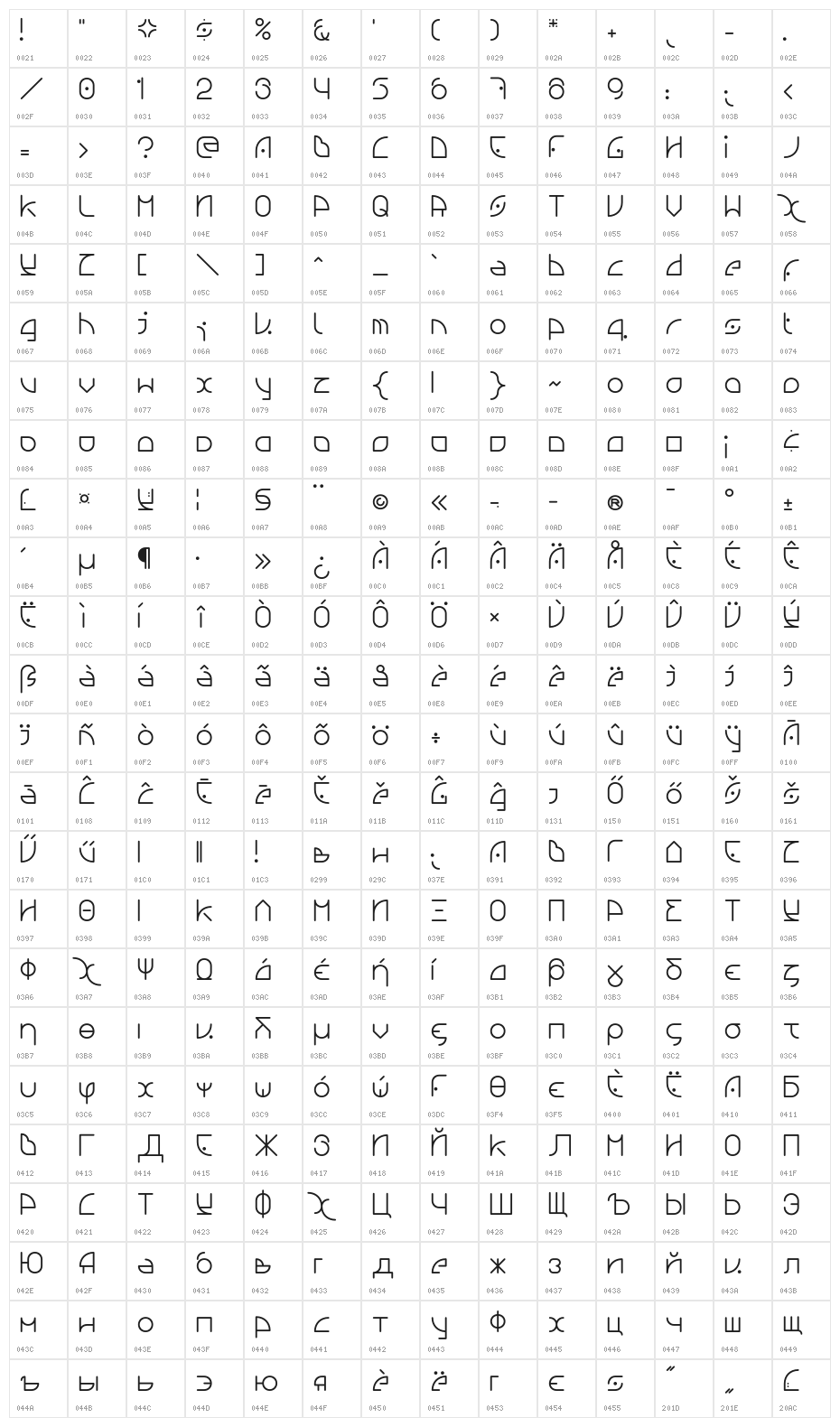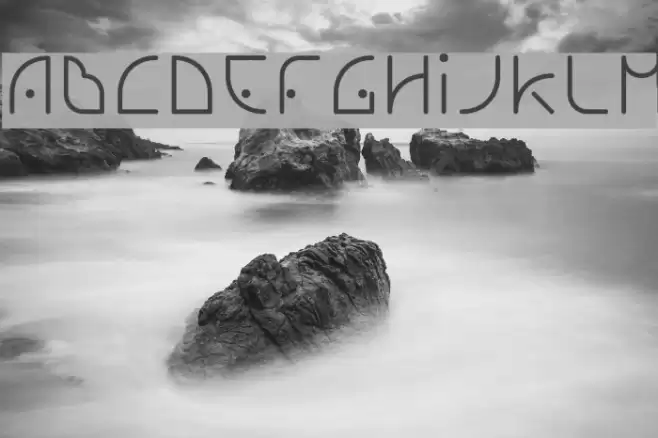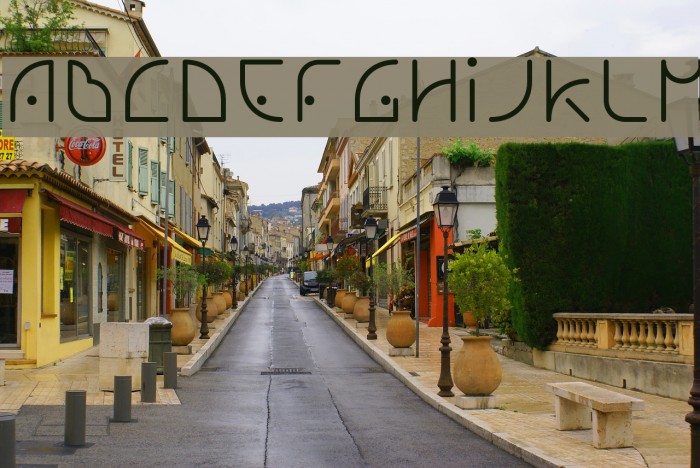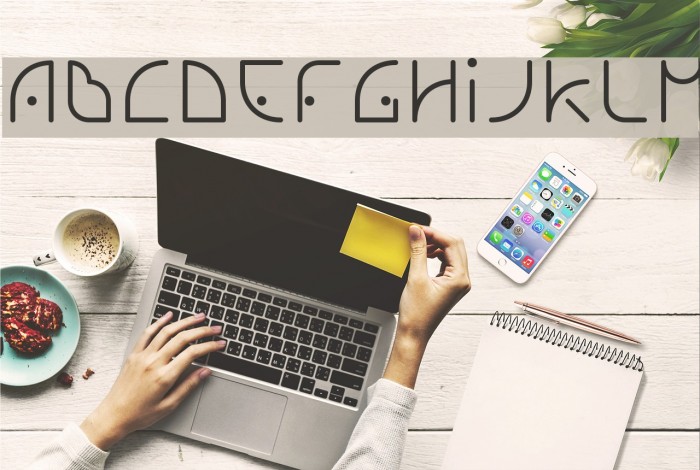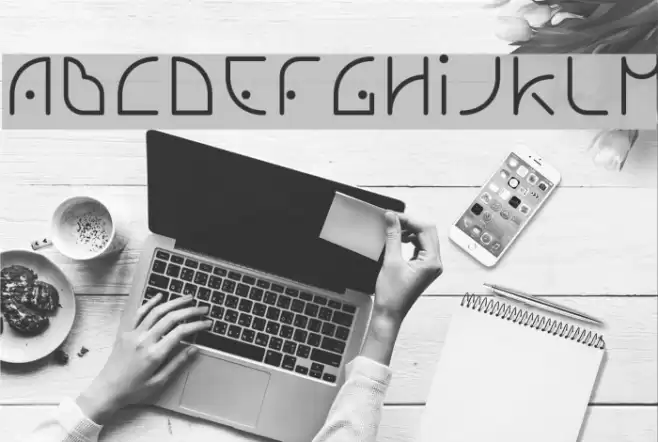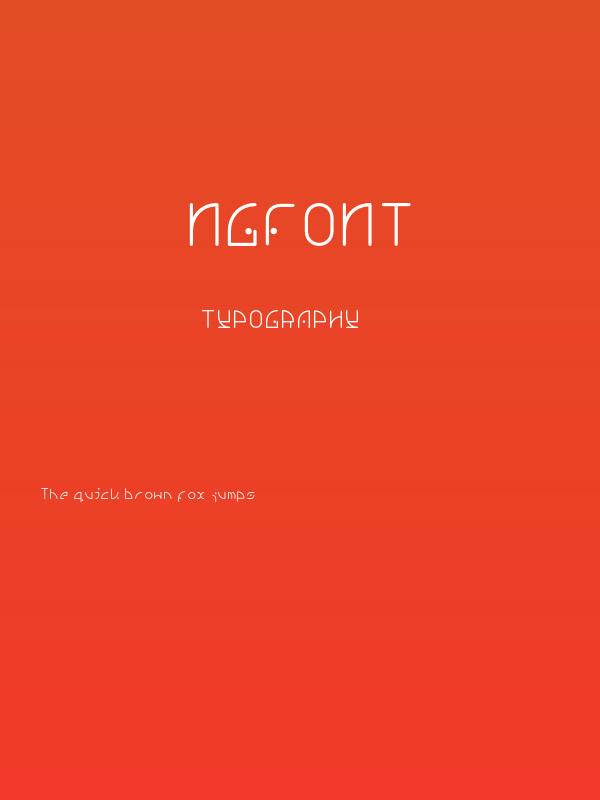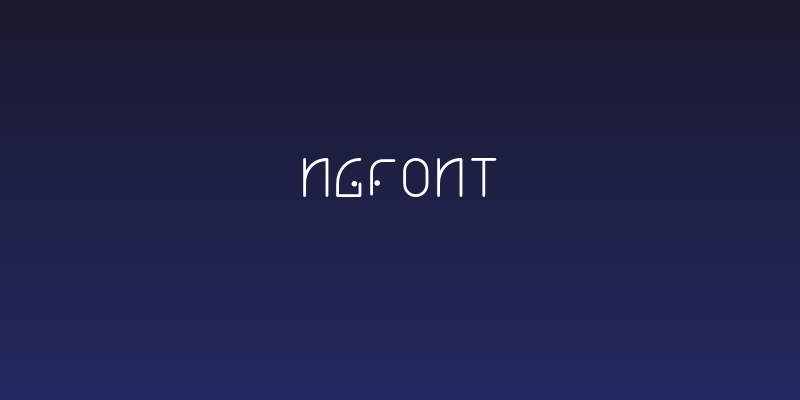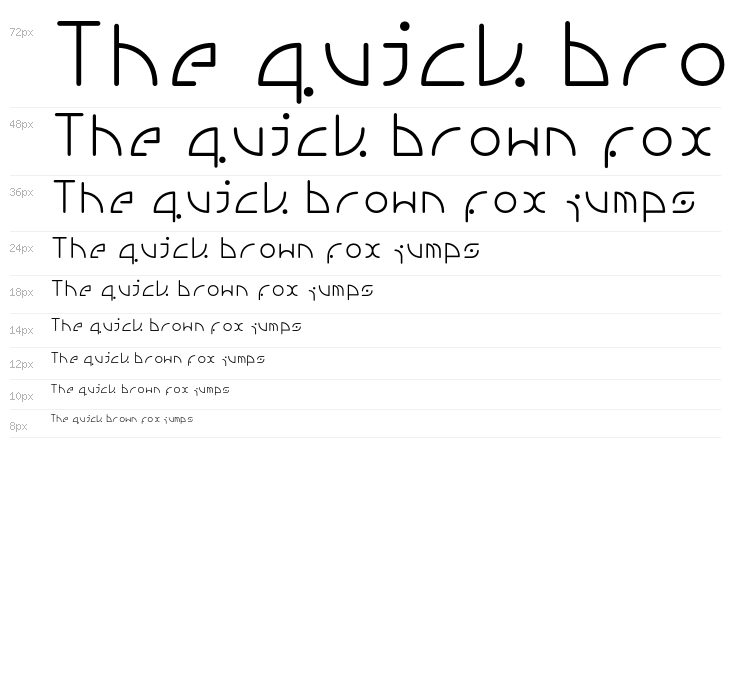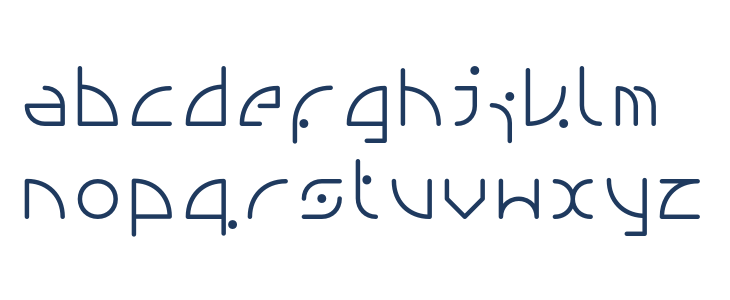
NGfont Font
NGfont Description
This font features a unique and futuristic design with geometric shapes and clean lines. Each character is crafted with a minimalist approach, incorporating circular elements and sharp angles that give it a distinct, modern look. The uppercase and lowercase letters maintain a consistent style, with a focus on symmetry and balance. Numbers and special characters are designed to complement the overall aesthetic, making the font versatile for various applications. Its sleek and innovative appearance makes it suitable for projects that require a contemporary and cutting-edge feel.
Use CaseLogos, Headlines, Digital interfaces
Proposed ProjectsIdeal for tech branding, modern advertising, digital interfaces, and sci-fi themed designs.